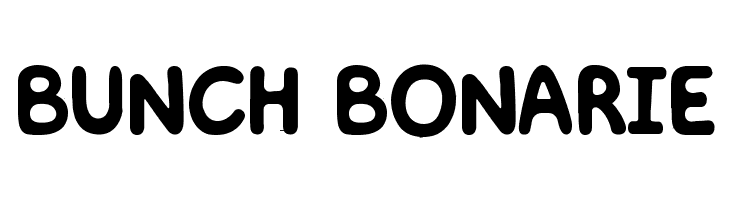
A playful, textured font with a hand-drawn, sketch-like appearance.
A rustic, textured font with a hand-drawn, organic feel.
A playful, hand-drawn font with rounded, bold characters.
A playful, outlined font with a hand-drawn, whimsical style.
A playful, hand-drawn font with bold, rounded letters and a whimsical style.
A bold, playful font with rounded, blocky characters and a whimsical style.
A bold, rounded, and playful font with a strong, decorative style.
A bold, playful font with a rounded, extruded style and tight spacing.
A playful, outlined font with bold, rounded characters and a whimsical style.
A playful, rounded font with bold, smooth curves and a friendly appearance.
A playful, bold font with rounded, bubbly characters perfect for fun projects.
A playful, outlined font with rounded, bold characters and a whimsical style.
A playful, bold font with a hand-drawn, childlike style.
A bold, playful font with a hand-drawn, outlined style.
A playful, handwritten font with a casual and friendly vibe.
A playful, thin, and whimsical font with elongated strokes and a light feel.
A playful, outlined font with a hand-drawn, whimsical style.
A playful, handwritten font with a childlike charm and bold strokes.
A playful, rounded font with a youthful, hand-drawn appearance.
A bold, playful font with rounded, dynamic characters.
A playful, rounded font with a marker-like appearance, perfect for youthful designs.
A playful, hand-drawn font with bold, rounded characters and a whimsical style.
A playful, rounded font with a hand-drawn, friendly appearance.
A playful, hand-drawn font with rounded, bold characters.
A bold, playful handwritten font with rounded, consistent strokes.
A bold, playful handwritten font with thick strokes and rounded edges.
A bold, geometric font with sharp angles and a modern aesthetic.
A playful, bold font with rounded, bubbly characters.
A playful, hollow, and outlined font with bold, rounded characters.
A bold, dynamic font with thick strokes and a slight slant, perfect for impactful designs.
A bold, blocky font with a playful, comic-like style.
A bold, italicized block font with sharp angles and a modern style.
A bold, comic-inspired font with playful, dynamic characters.